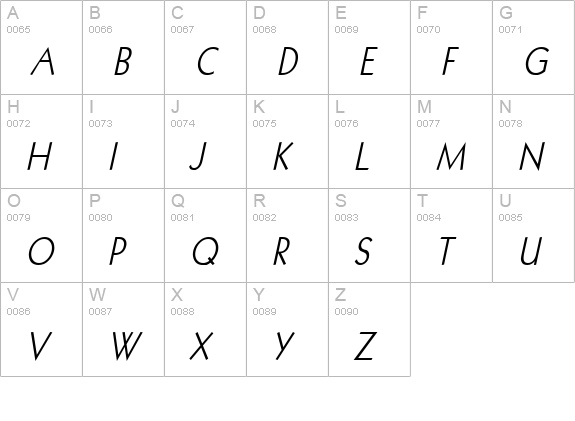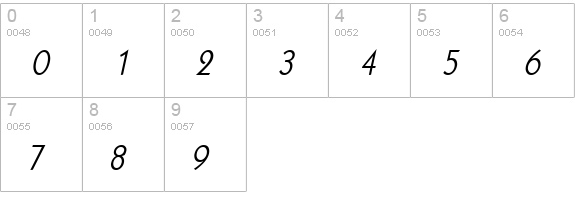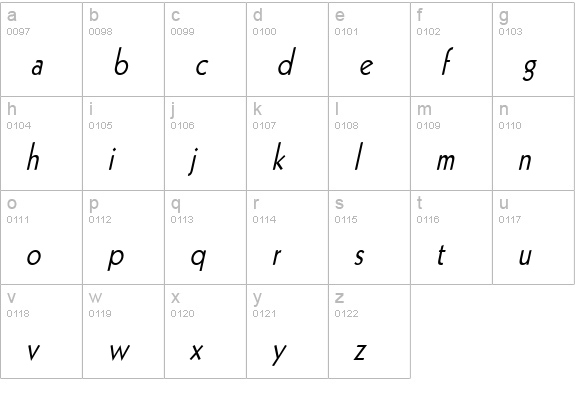
Geo 112 Condensed Italic is a distinctive, condensed-width, italic variant in the Geo typeface family \xE2\x80\x94 well suited to design and typography projects.
Introducing Geo 112 Condensed Italic font, a sleek and modern typeface that exudes elegance and sophistication. Perfect for creating attention-grabbing headlines, signage, and branding materials, this font strikes the perfect balance between contemporary style and readability. With its condensed and italicized design, Geo 112 is versatile and can be used in a variety of design projects, adding a touch of flair and sophistication. The sleek lines and sharp angles of this font make it a standout choice for those seeking a modern and minimalist aesthetic. The best part? Geo 112 Condensed Italic font is available for free download at FontsMarket.com. Now you can elevate your designs with this stylish and eye-catching typeface without breaking the bank. Don't miss out on the opportunity to add Geo 112 Condensed Italic font to your font collection today!